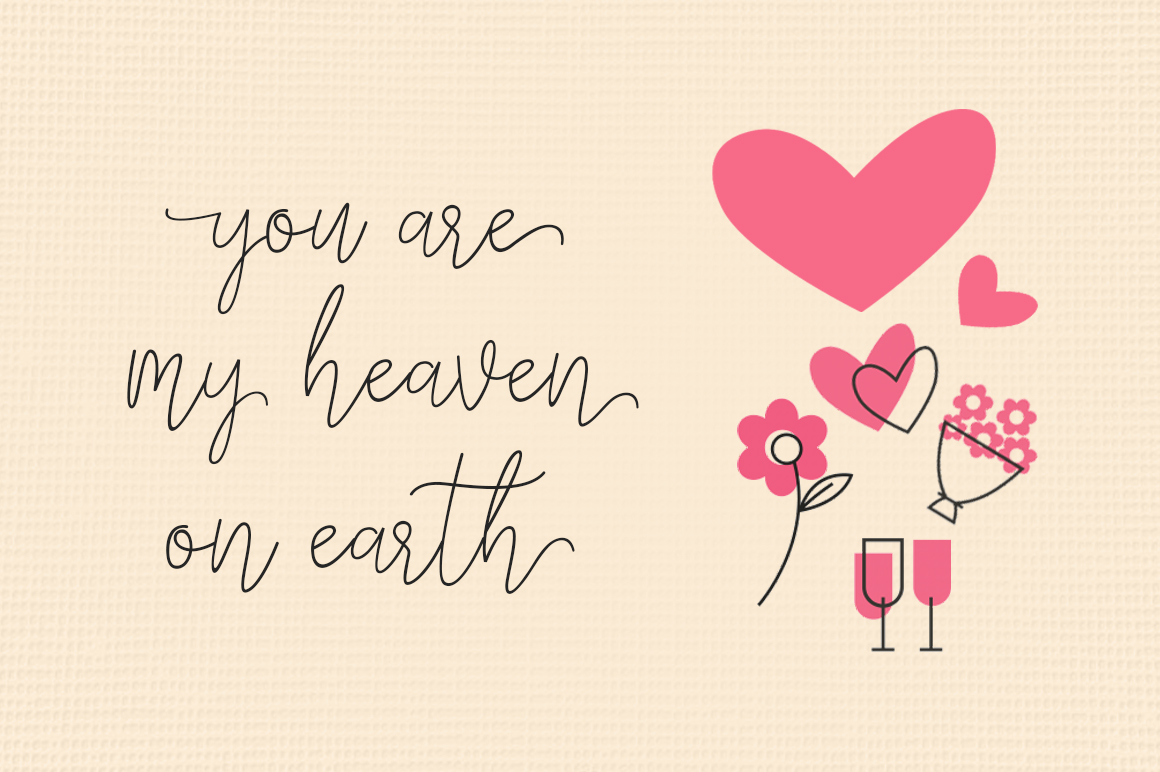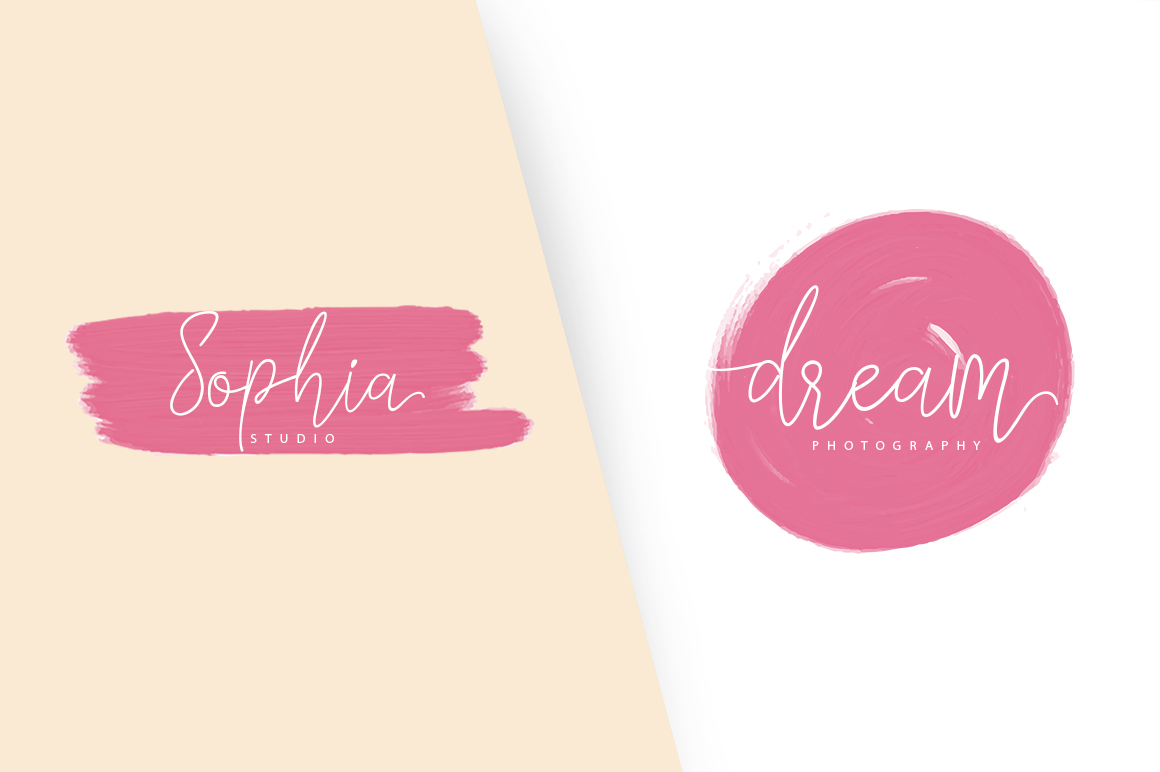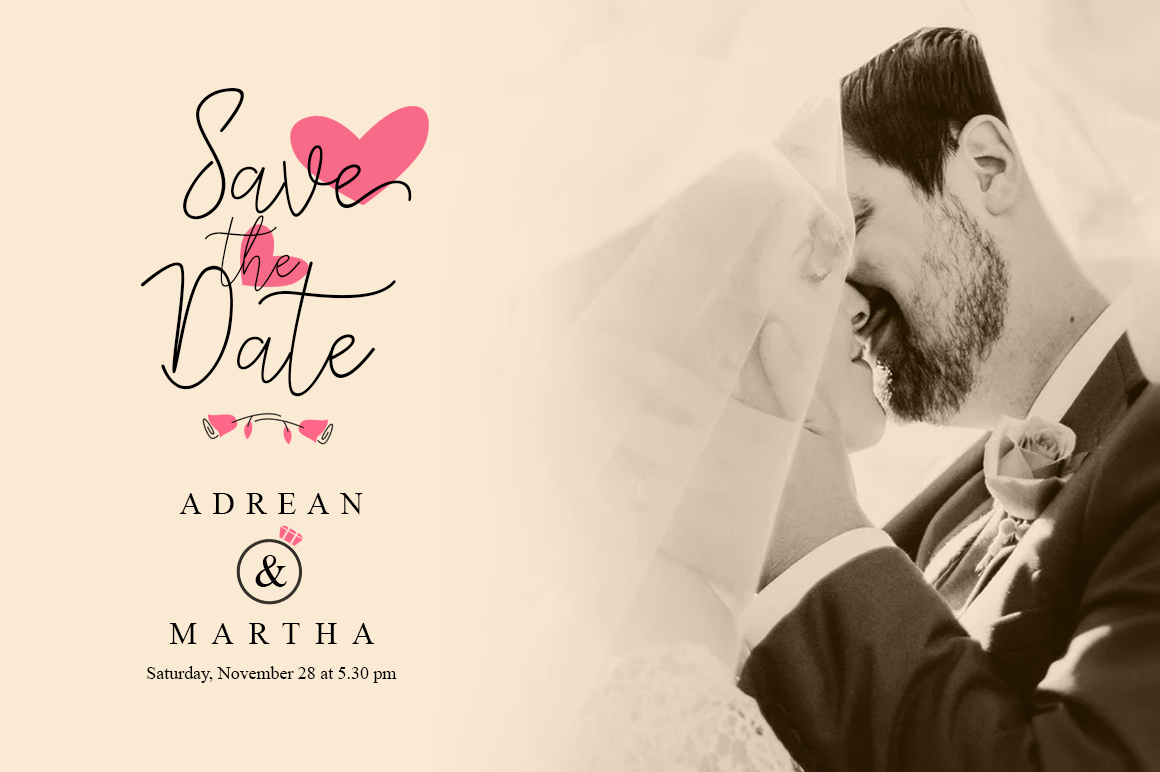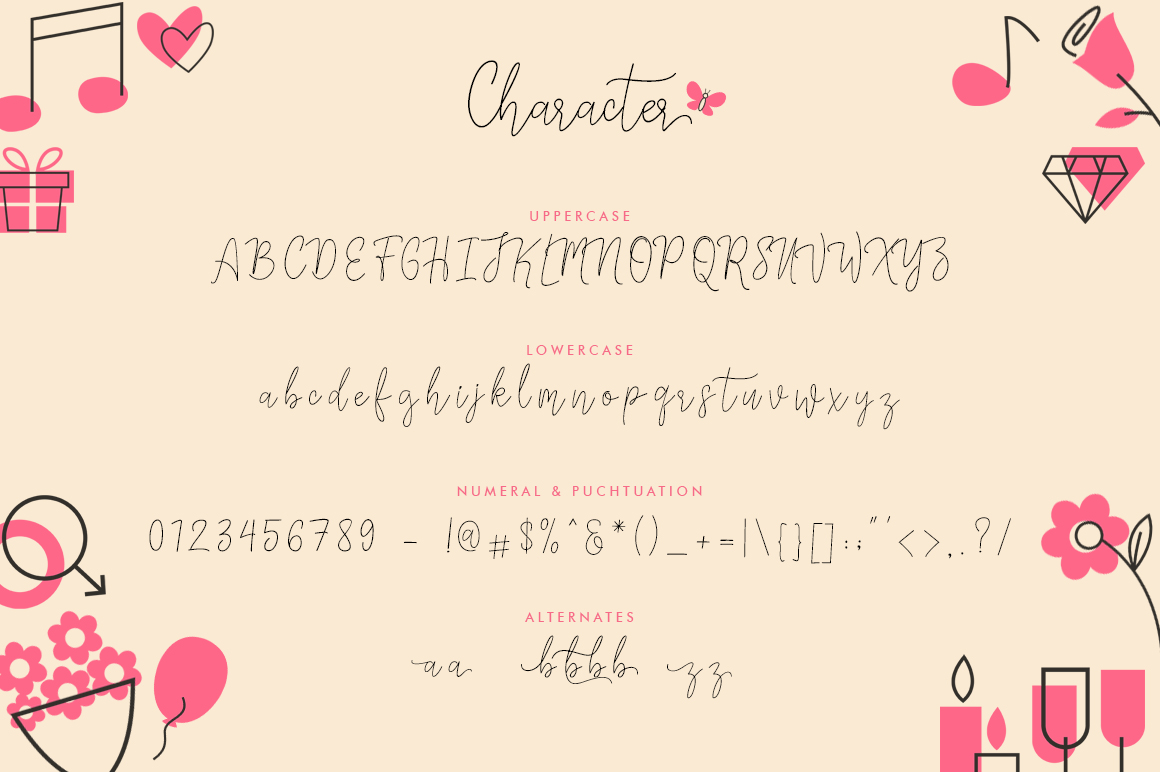
Licht Font
About Licht Font
Licht is a beautifully handcrafted monoline script, made with modernity in mind. Clean and romantic, Licht is a refreshing alternative to other script styles given its minimal approach to flourishes and weighting.